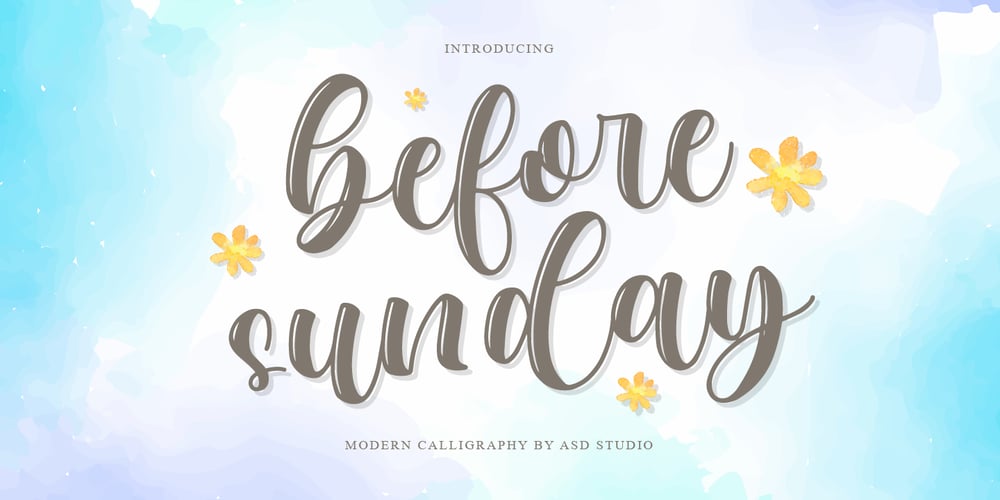
Before Sunday Font Family was designed by Ghazi and published by Asd Studio. Before Sunday contains 1 styles and family package options. Before Sunday is a script font created with love, sincerity, and patience. Can be used to make invitation writing, lettering, and all graphic design needs. I highly recommend using a program that supports OpenType featuresand Glyphs panels such as Adobe Illustrator, Adobe Photoshop CC, Adobe InDesign, or CorelDraw, so you can see and access all Glyph variations. This font is encoded with Unicode PUA, which allows full access toall additional characters without having special design software. Mac users can use Font Book, and Windows users can use Character Map to view and copy one of the extra characters to paste into your favorite text editor / application. Thank you if you are interested in purchase and using my font. I hope you enjoy the font, feel free to comment or feedback, send me PM or email.Thank you.